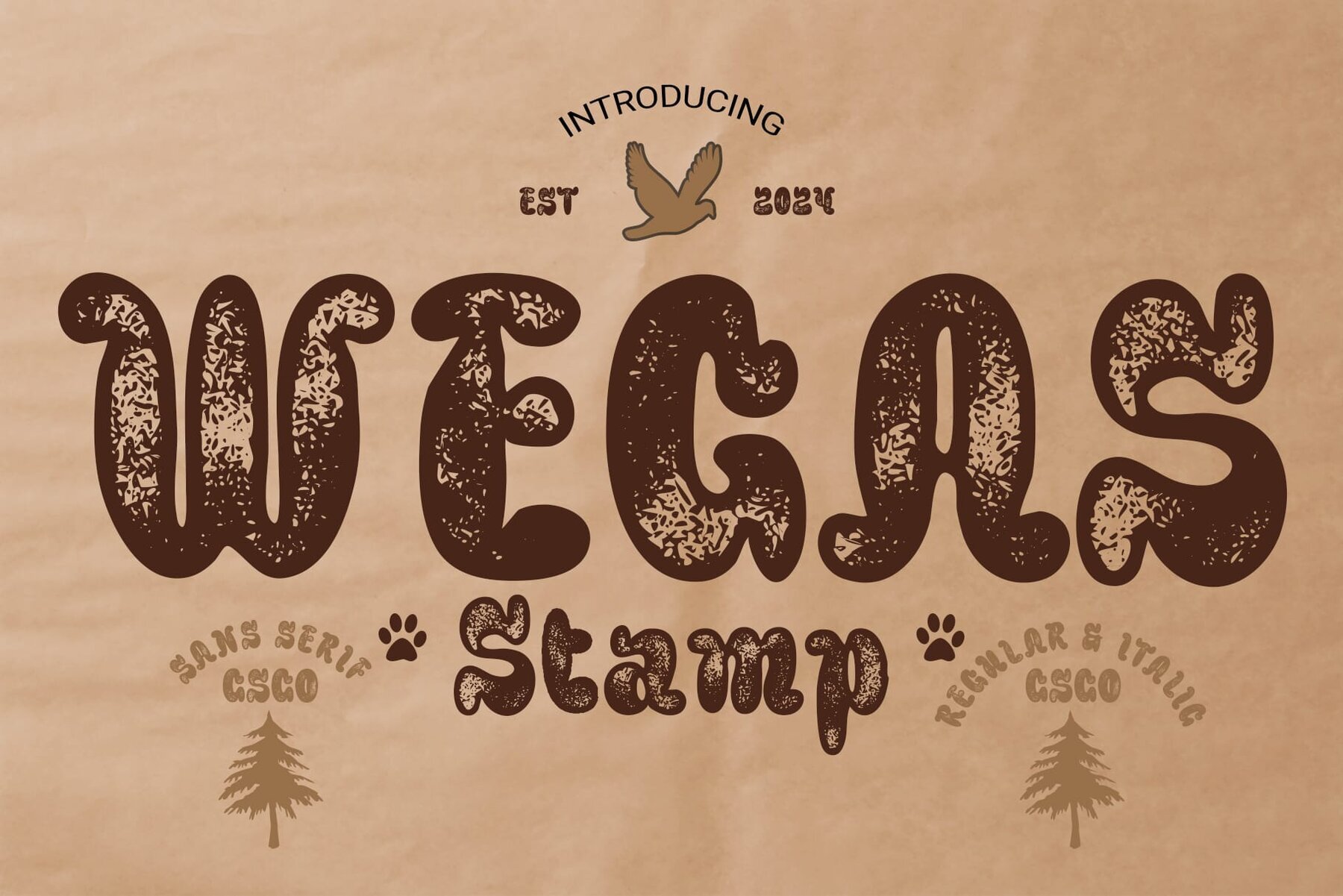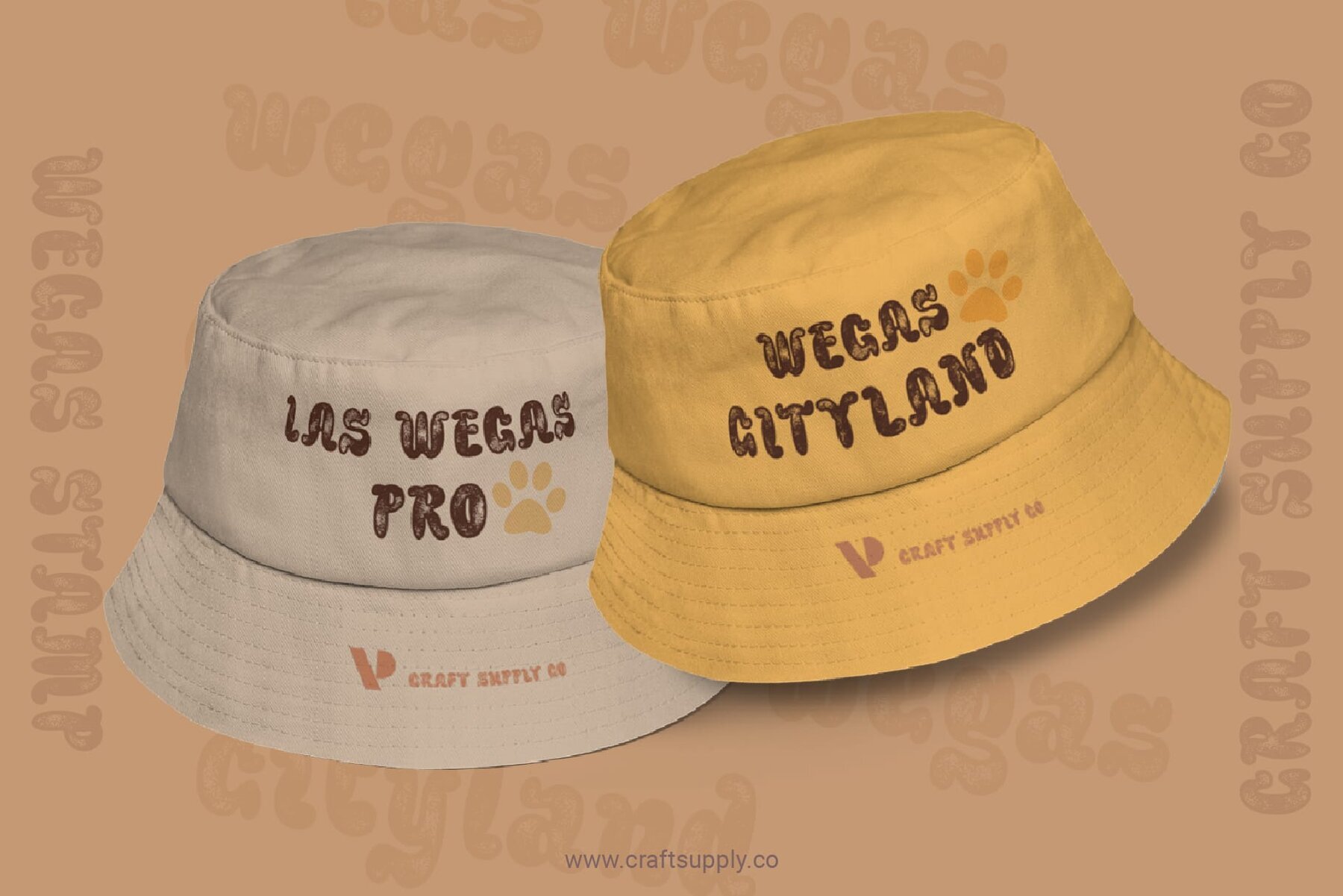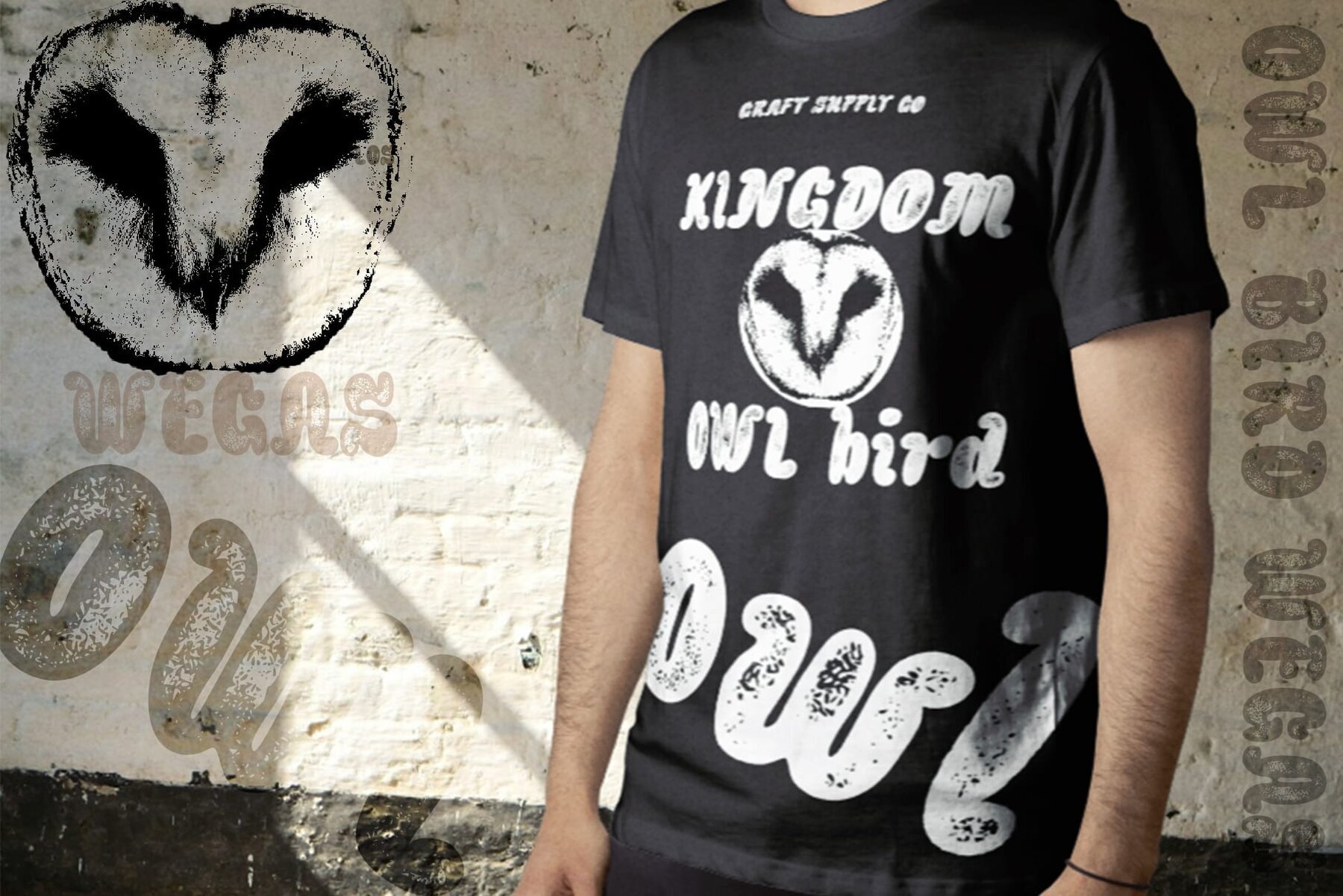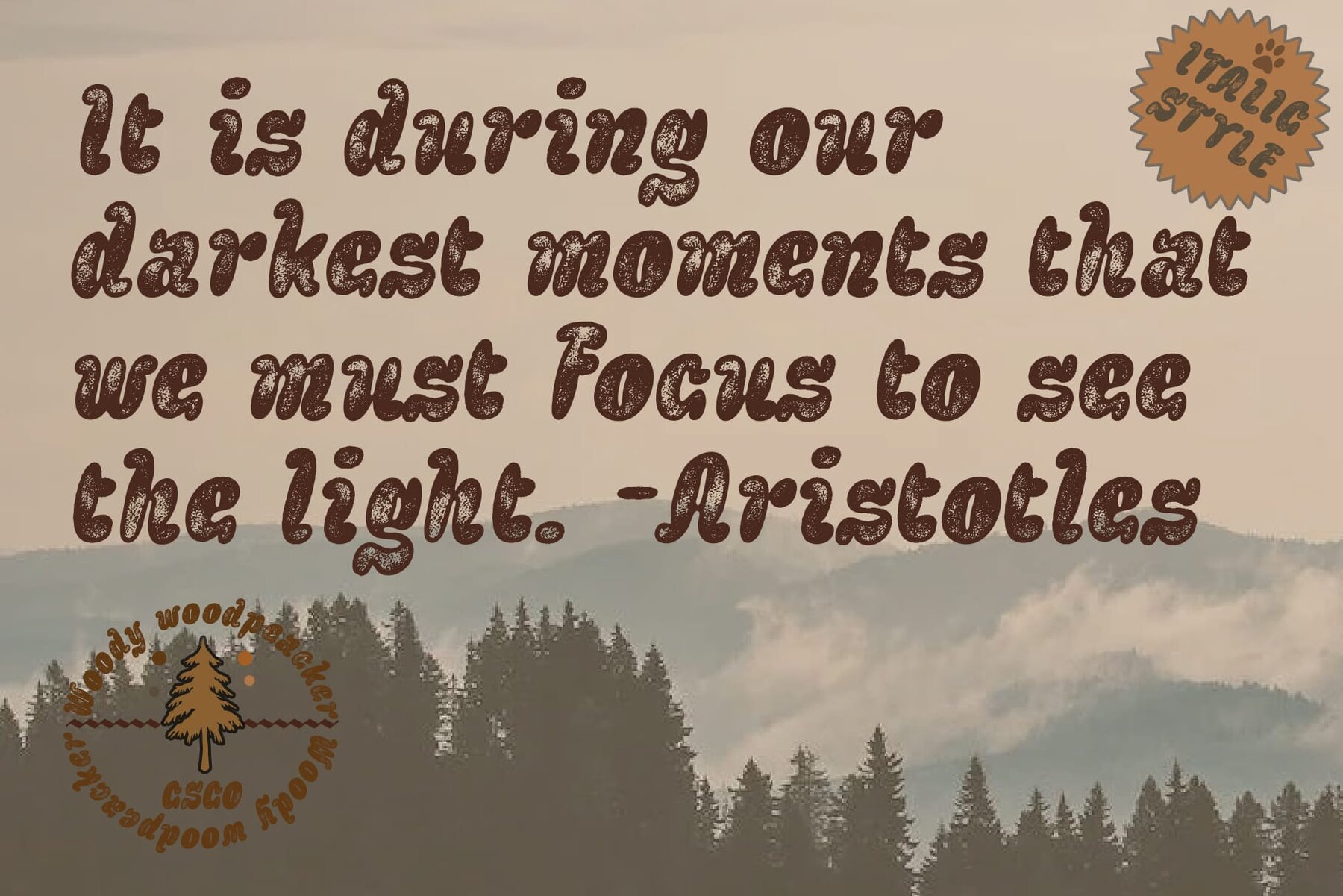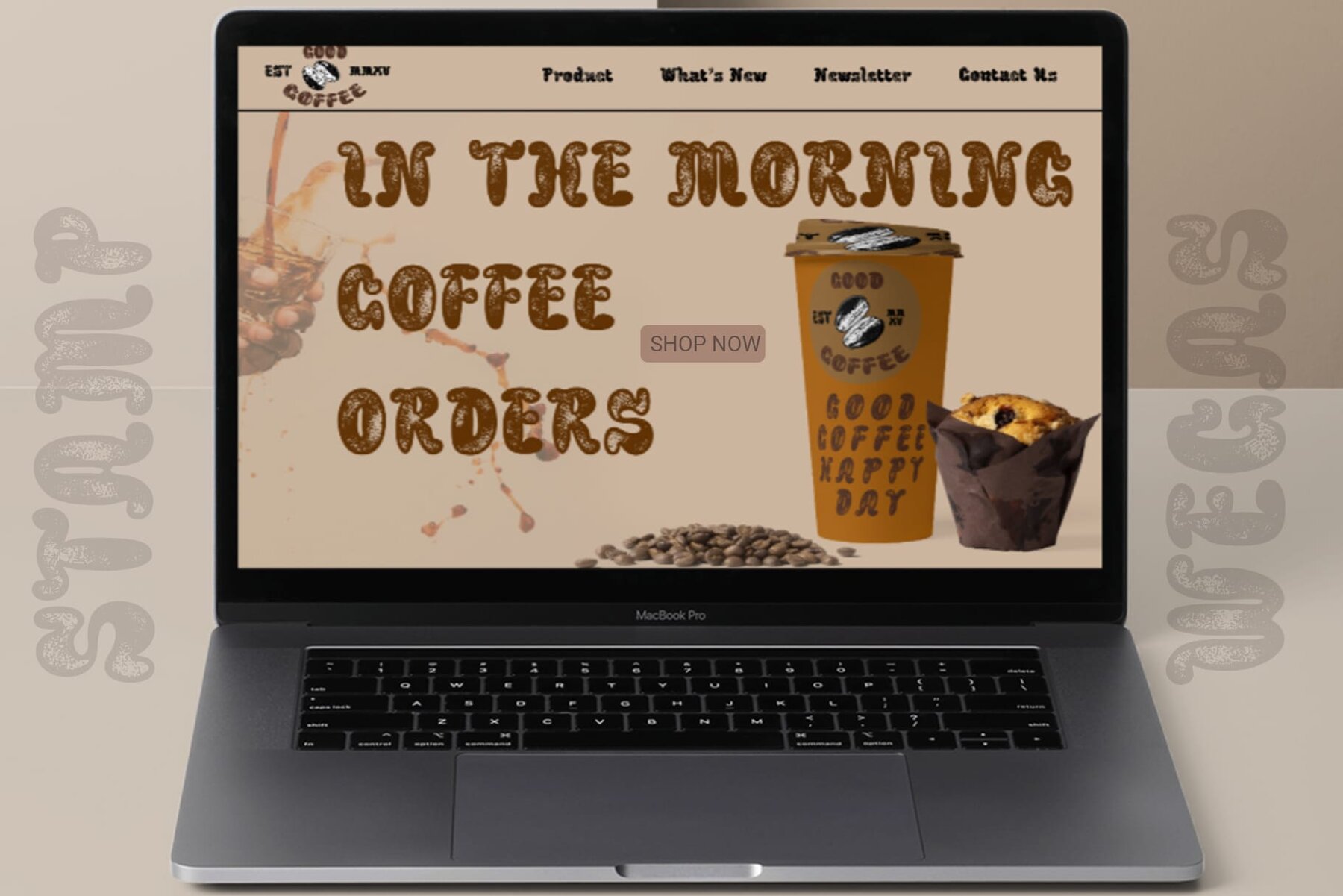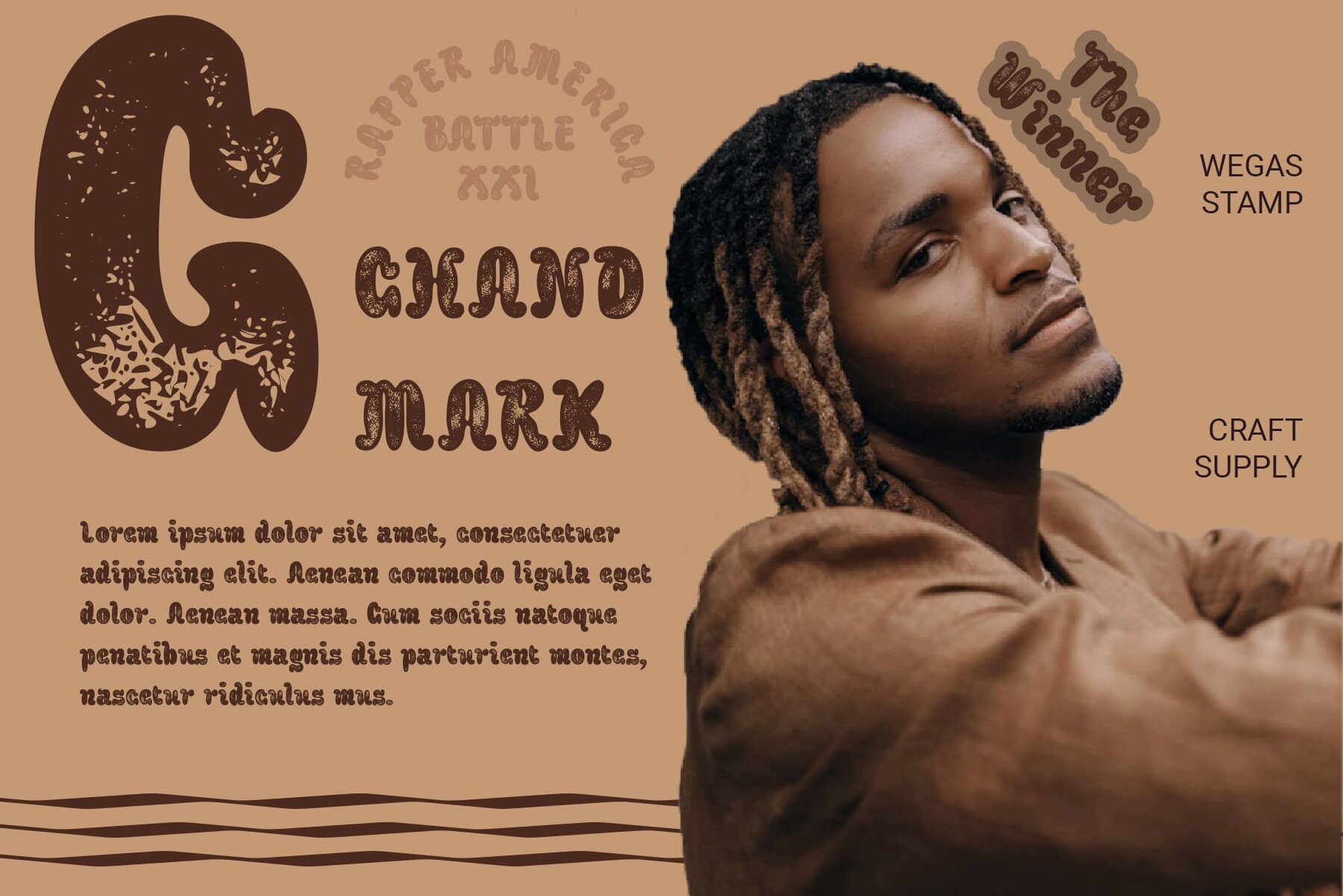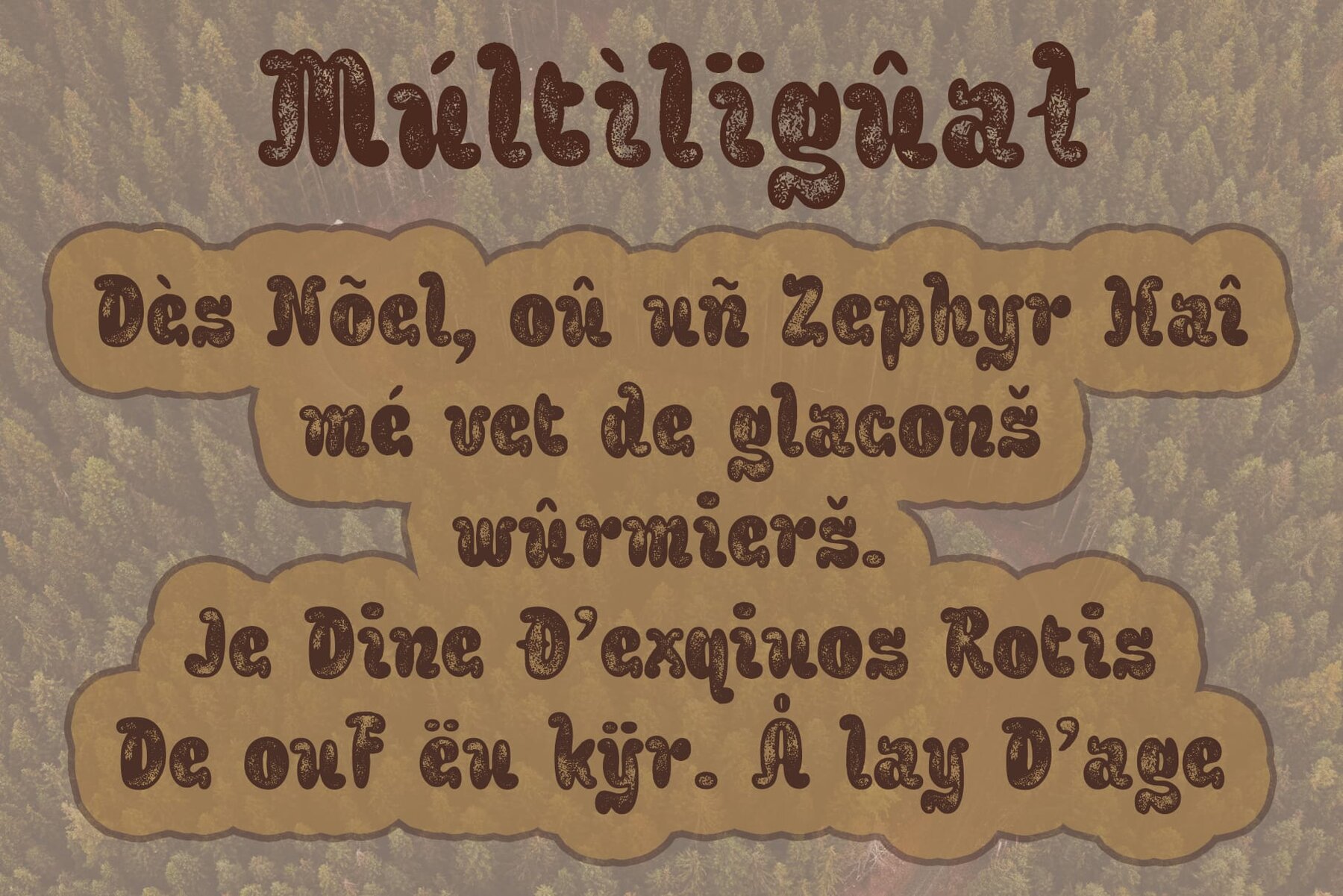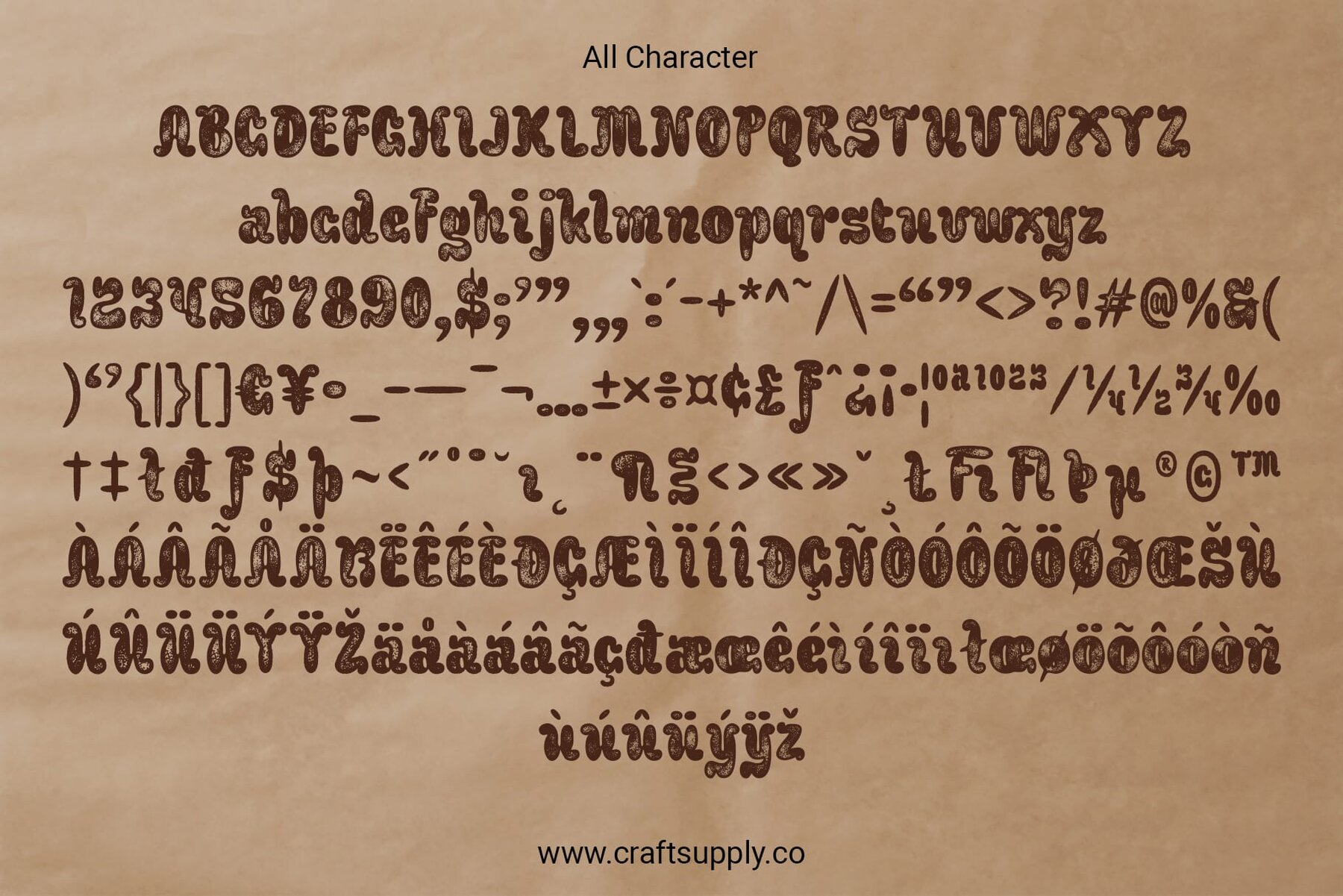
Wegas Stamp Font
Wegas Stamp by Craft Supply Co. brings a delightful blend of nostalgia and playfulness through its bubble font style. Inspired by the rounded shapes of balloons, each letter is crafted with smooth curves and circular forms, offering a charming aesthetic for various creative projects. This typeface embodies creativity and fun, capturing the essence of playful designs. Wegas Stamp is perfect for those looking to add a touch of vintage-inspired vibrancy to their work.Wegas Stamp: Vintage-Inspired Bubble Font
Bubble Font Inspiration